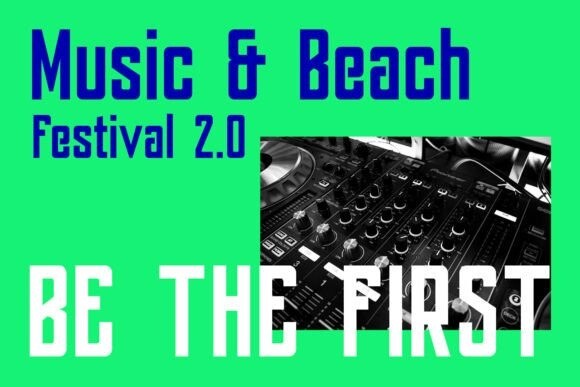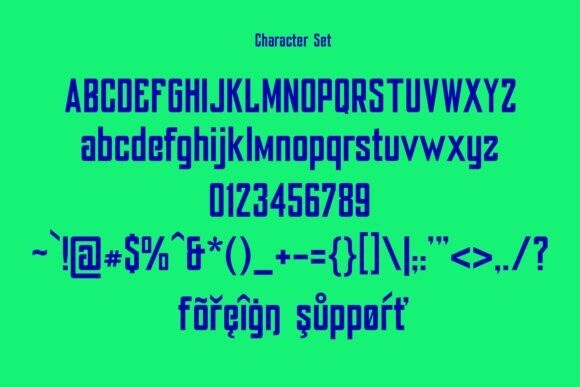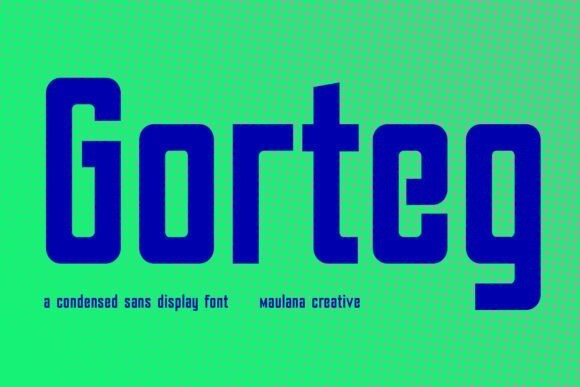
Gorteg Font
Gorteg Font is an industrial vibes condensed sans display font. Bold stroke, fun character with a bit of ligatures and alternates. To give you an extra creative work. Gorteg font support multilingual more than 100+ language. This font is good for logo design, Social media, Movie Titles, Books Titles, a short text even a long text letter and good for your secondary text font with script or serif. Make a stunning work with Gorteg font.